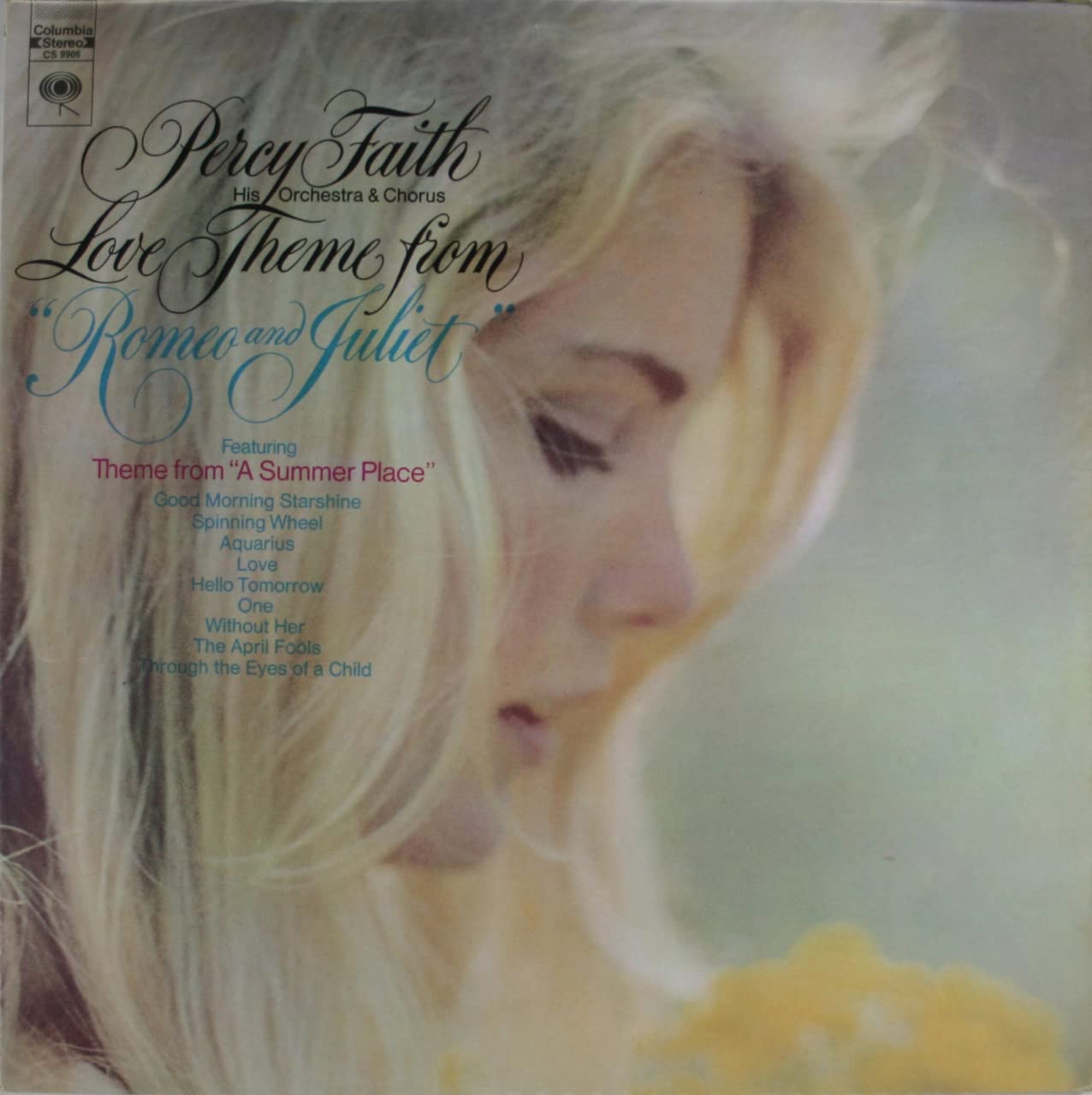
Does anyone know the fonts in calligraphy? I know the other one is Helvetica
No font for the title. It's calligraphy, done by hand. Notice that every letter is slightly different. If you want something in a similar style, best to hire a calligrapher. If you must use a font check out Edwardian Script and Filmotype Yale.